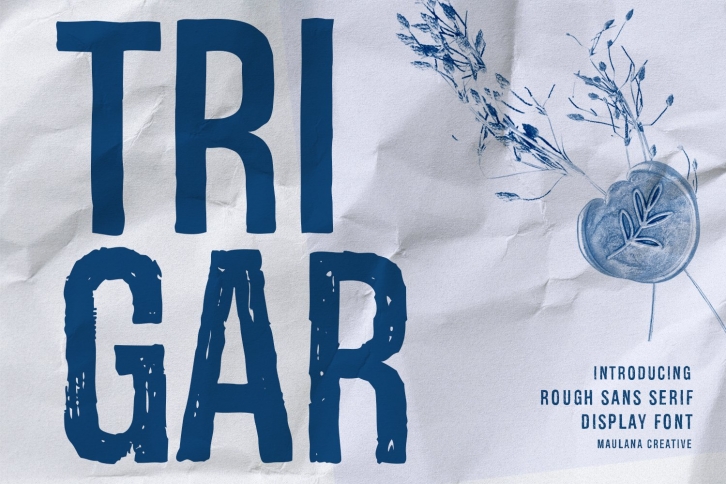
Trigar Rough Sans Serif Display is a gorgeous font that was realeased on August 11, 2022. The font can be used in many style contexts and design environments. Perfect for invitations, magazines, websites, logos, and more! It was designed by Maulana Creative and the file size is 20.81 MB. Thanks for checking out this font!